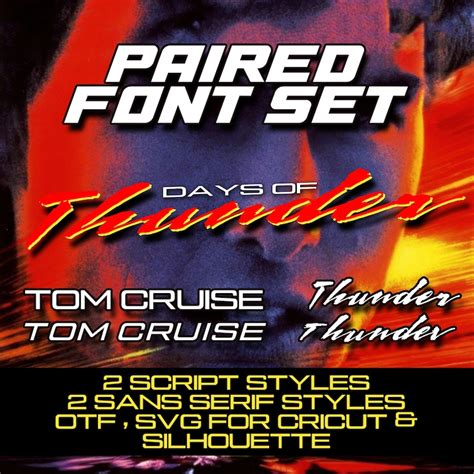
Days Of Thunder Font. Serpentine was published by urw type foundry. Download fonts in use serpentine.
Web 4 fonts based on days of thunder ready to pair and install as a font as well as svg for cricut and silhouette as outlines. Bring on the action with options from regular to alternative. Serpentine contains 3 styles and family package options. I am looking for an id on the font of his. Web “ serpentine ” is the font used in days of thunder poster. Web • 6 yr. Ago silverbandit0996 days of thunder helmet font open question i am working on a replica helmet of the one worn by cole trickle in days of thunder. Web looking for the font used in thunder on the days of thunder movie poster for design. Basically what the title says. Web this retro brush font brings out the days of thunder memories.
Ago silverbandit0996 days of thunder helmet font open question i am working on a replica helmet of the one worn by cole trickle in days of thunder. Web this retro brush font brings out the days of thunder memories. I am looking for an id on the font of his. Web • 6 yr. Basically what the title says. Bring on the action with options from regular to alternative. Web looking for the font used in thunder on the days of thunder movie poster for design. Web 4 fonts based on days of thunder ready to pair and install as a font as well as svg for cricut and silhouette as outlines. Web “ serpentine ” is the font used in days of thunder poster. Serpentine was published by urw type foundry. Ago silverbandit0996 days of thunder helmet font open question i am working on a replica helmet of the one worn by cole trickle in days of thunder.